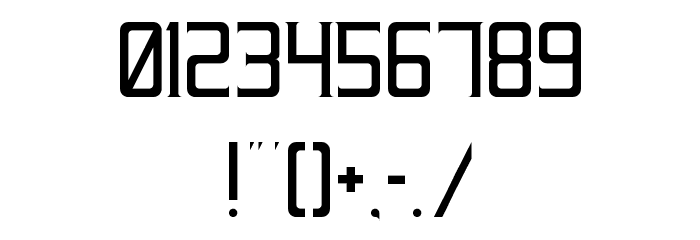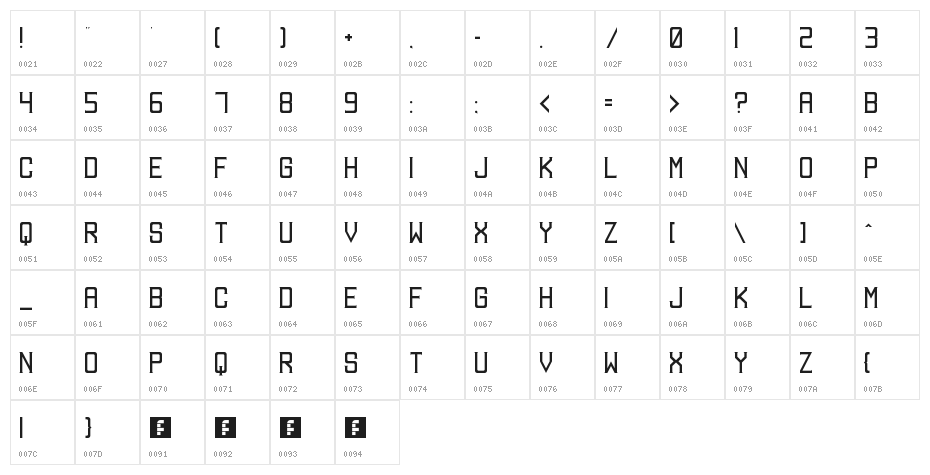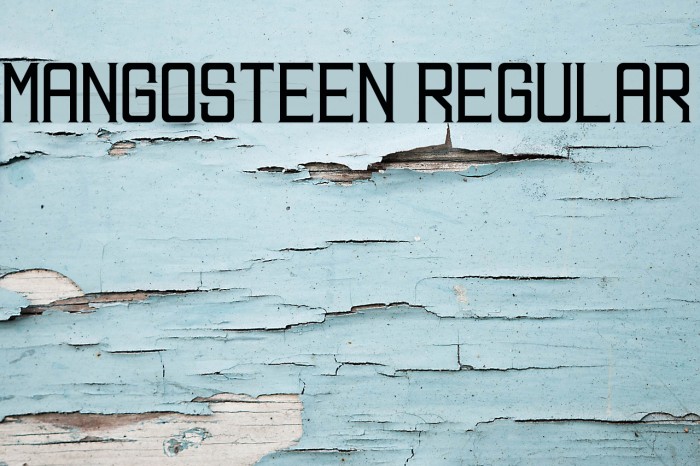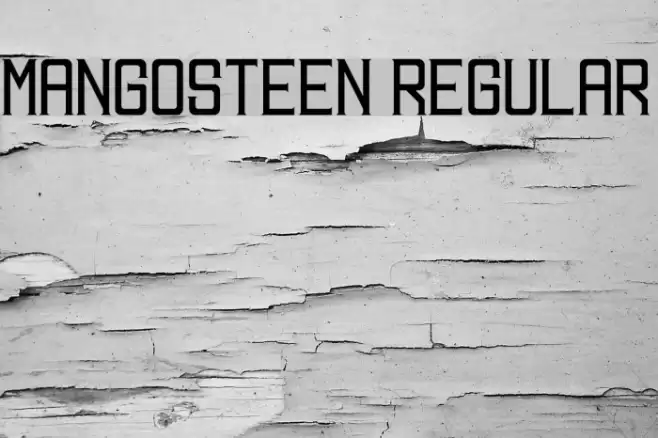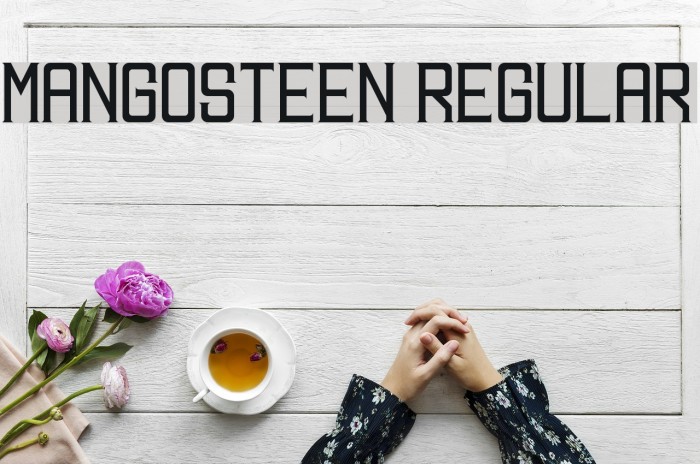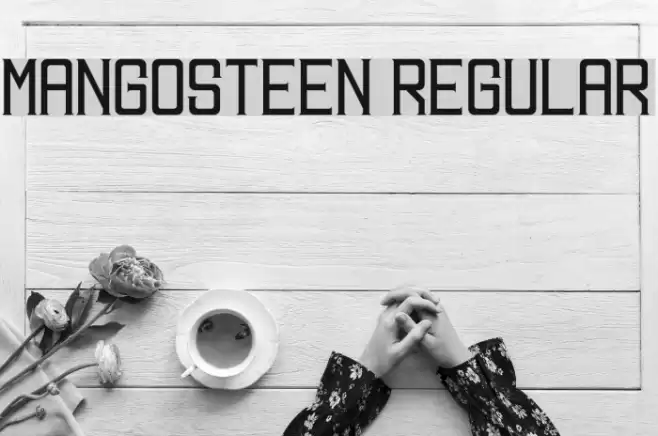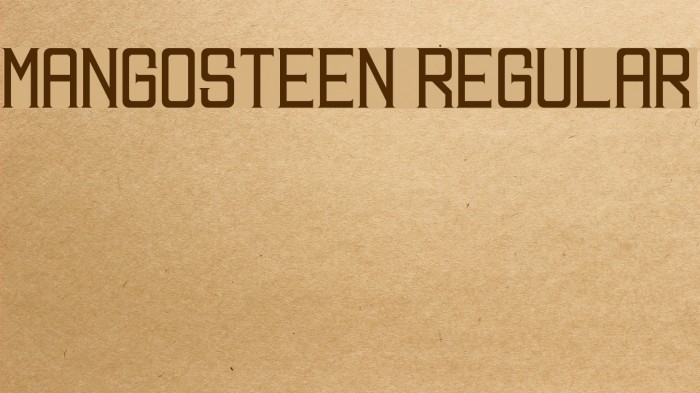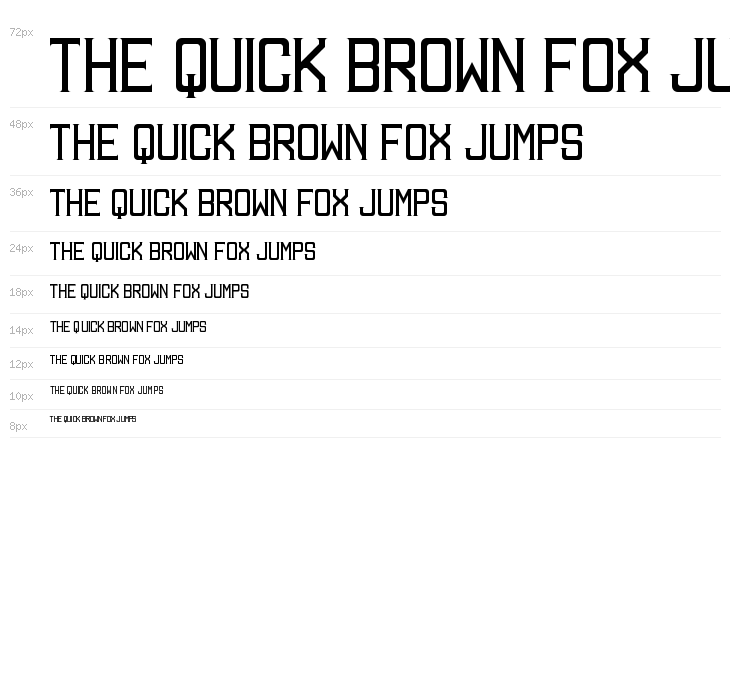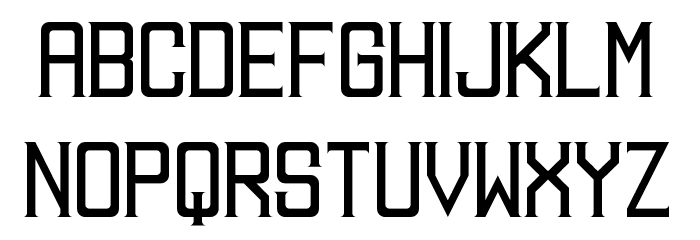
MANGOSTEEN Regular Font
MANGOSTEEN Regular Description
This font exhibits a modern and geometric design with a unique blend of sharp angles and clean lines. The uppercase letters are bold and structured, featuring a distinct angularity that gives them a futuristic appearance. The lowercase letters maintain the same geometric style, ensuring consistency throughout the typeface. The numerals are equally bold and angular, complementing the overall aesthetic. Special characters are designed with the same attention to detail, making them fit seamlessly with the rest of the font. The font's style is both striking and versatile, suitable for a variety of design applications.
| Proposed Projects | Ideal for branding, posters, and digital media where a modern and bold statement is needed. |